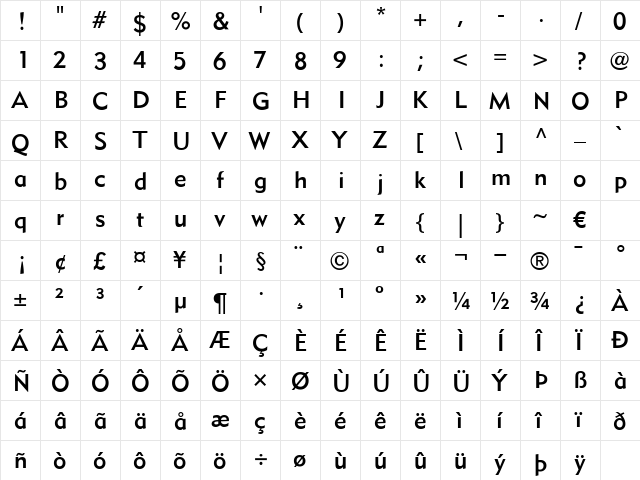
MetroMedium LT Two Regular
Design Context for MetroMedium LT Two Typeface
MetroMedium LT Two takes a measured approach to typography — its balanced proportions and neutral character make it a reliable workhorse for both digital and print work. Its slender proportions lend an understated elegance to any composition.
Pro Tip: Use MetroMedium LT Two in both headline and body roles to test its range before committing to a single application.